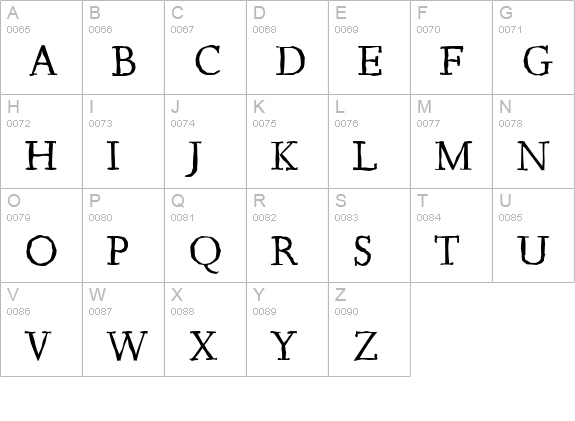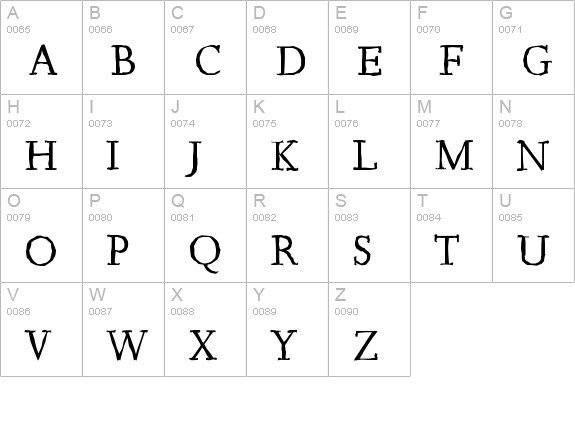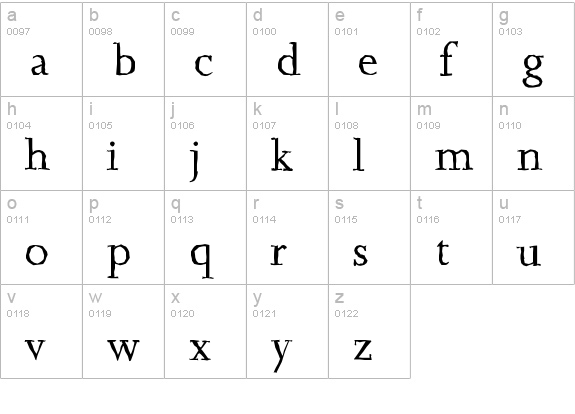
JessicaAntique-Regular Font Details
JessicaAntique-Regular is the standard, neutral variant in the JessicaAntique typeface family \xE2\x80\x94 well suited to general body text, paragraphs, and standard typographic work.
JessicaAntique-Regular is a classic and elegant serif font that exudes a timeless charm. Its intricate details and vintage aesthetic make it perfect for adding a touch of sophistication to your designs. The delicate serifs and graceful curves of JessicaAntique-Regular give any project a refined and polished look. What makes JessicaAntique-Regular even more appealing is that it is available for free download at FontsMarket.com. This means that you can easily access this beautiful font and use it in a variety of creative projects without any cost. Whether you are designing invitations, branding materials, or editorial layouts, JessicaAntique-Regular is sure to elevate your work with its exquisite style. Embrace the beauty and grace of JessicaAntique-Regular and bring a touch of elegance to your designs today. Download this stunning font for free at FontsMarket.com and enhance your projects with its timeless appeal.